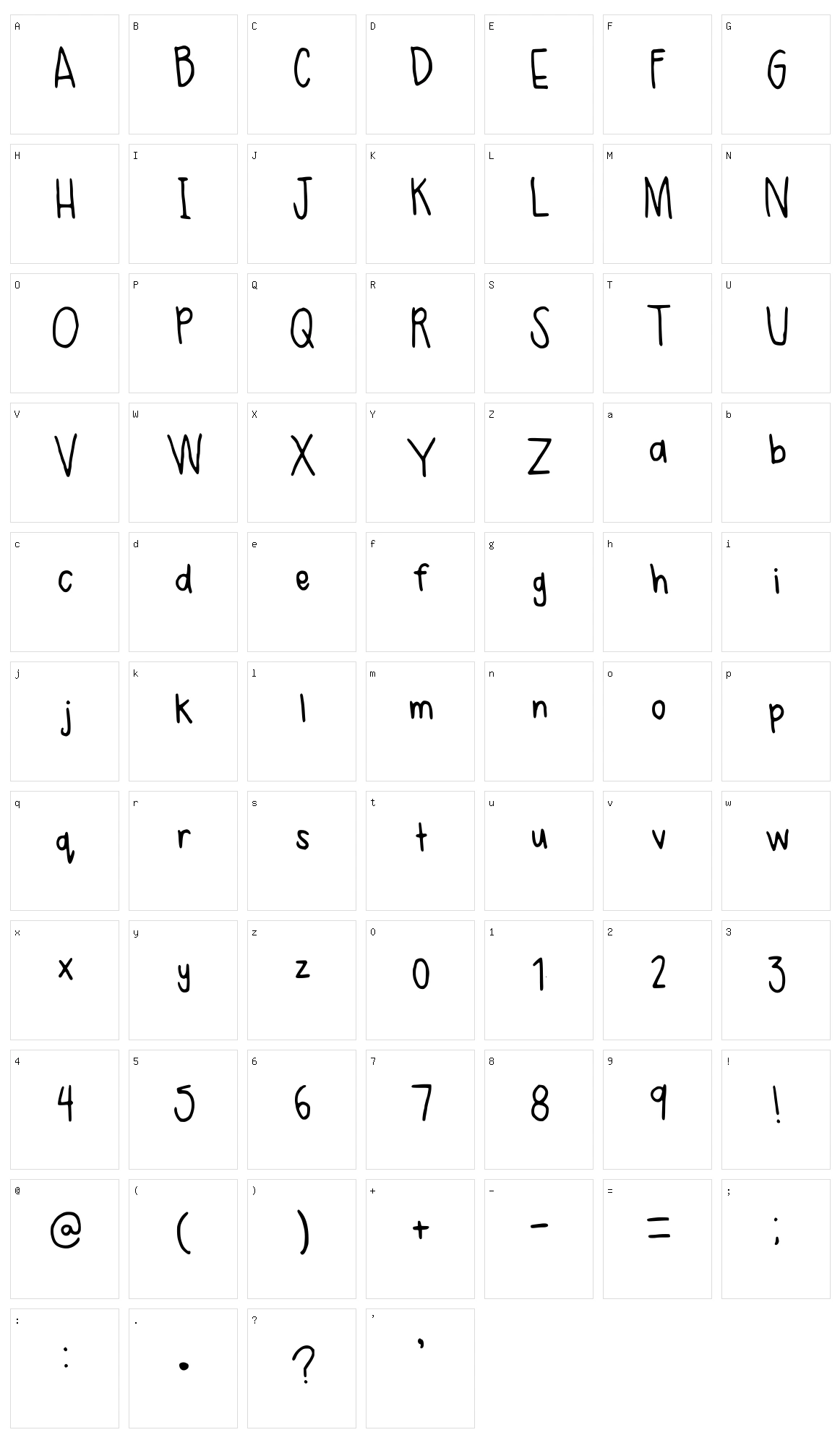
The free font Reeses is carefully designed by radreese, showcasing a thoughtful balance of creativity and usability and falls under the Script font style. When you download the ZIP file, it contains only 10.53 KB of font files, making it lightweight and quick to download. Please review the license details below to understand permitted usage and distribution rights. If license information is not available, we recommend using this font for personal projects only or contacting the author directly for commercial usage permissions.